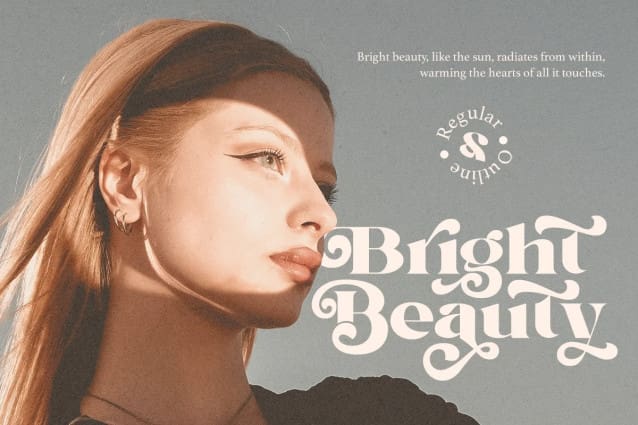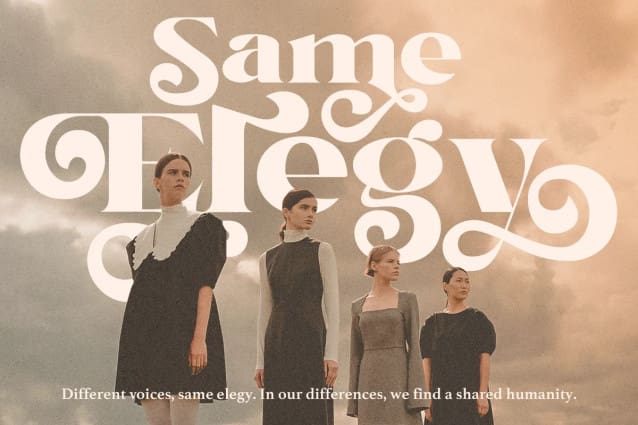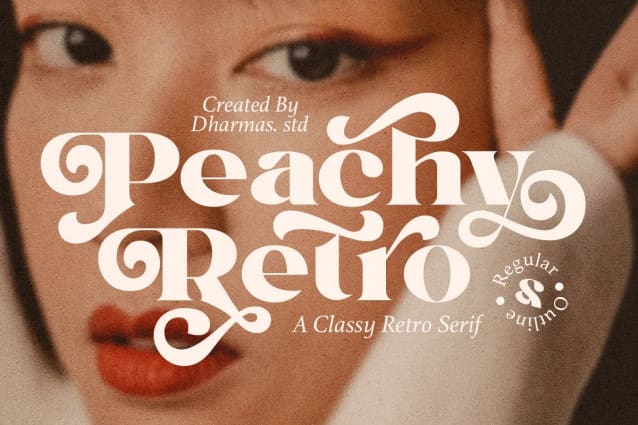
Peachy Retro Font
Peachy Retro Font – a brand new serif with all the nostalgic vibes! I’ve started seeing classic, tightly-spaced serifs of the 80s & 90s making a comeback, and wanted to create the perfect one for you too!
Peachy Retro is a beautifully nostalgic upper and lowercase typeface and has 191 Special Alternates that looks incredible in both large and small settings as a display and body text.
I’ve been loving combining the Regular and Outline, whether all in word or in body text!